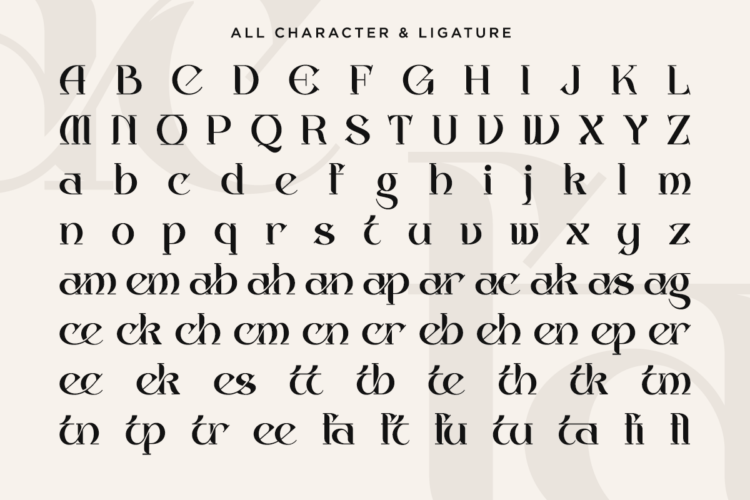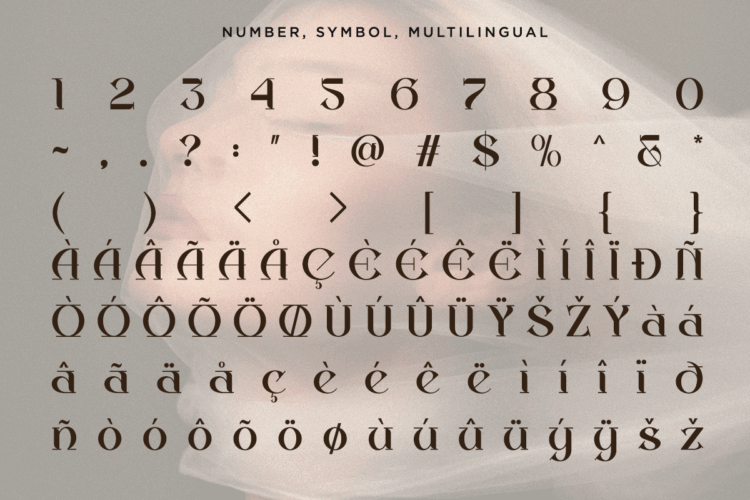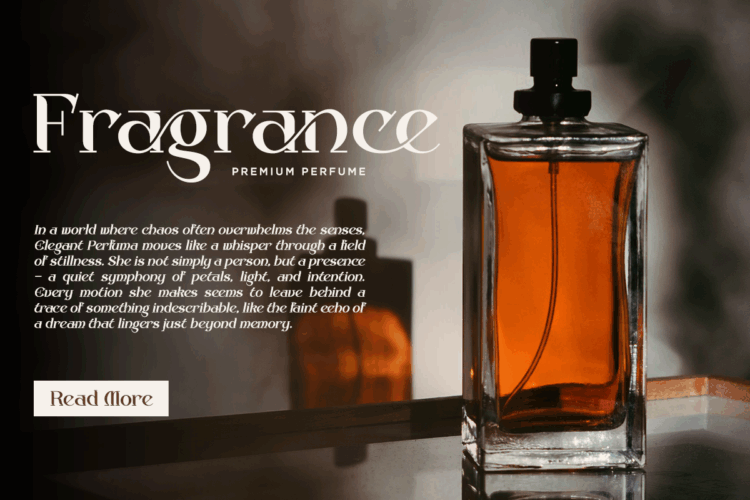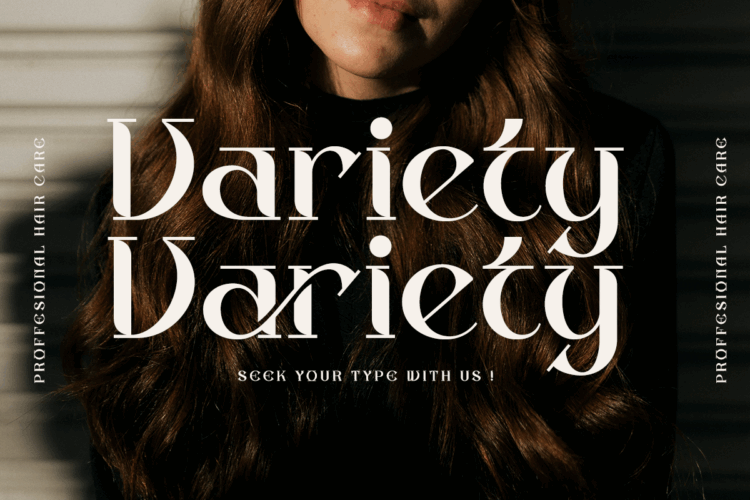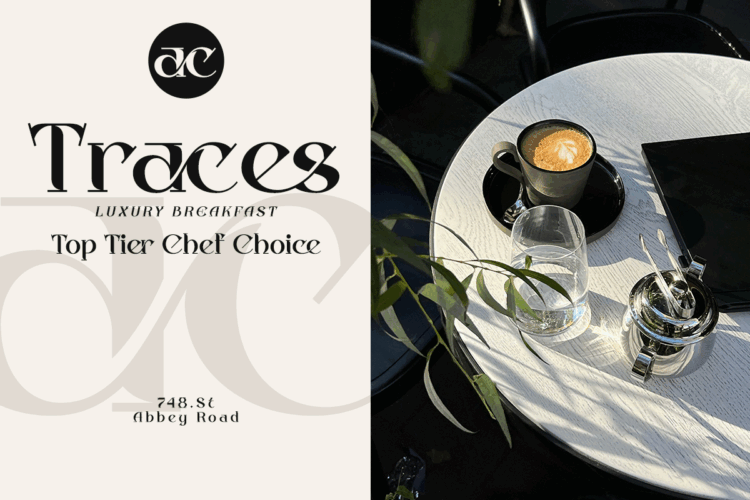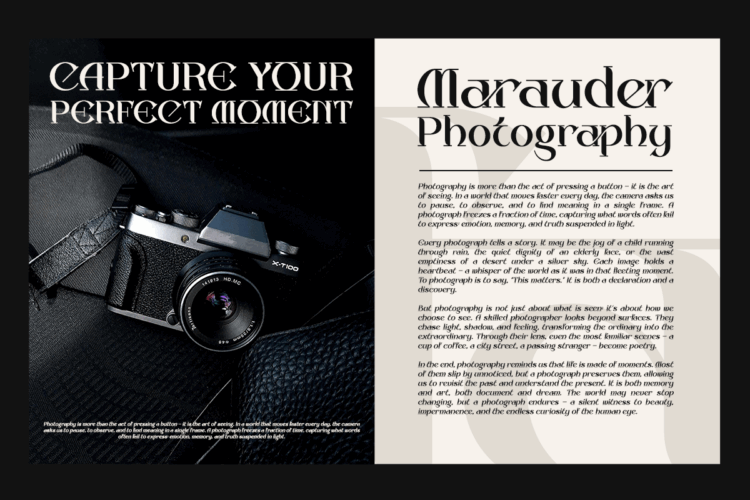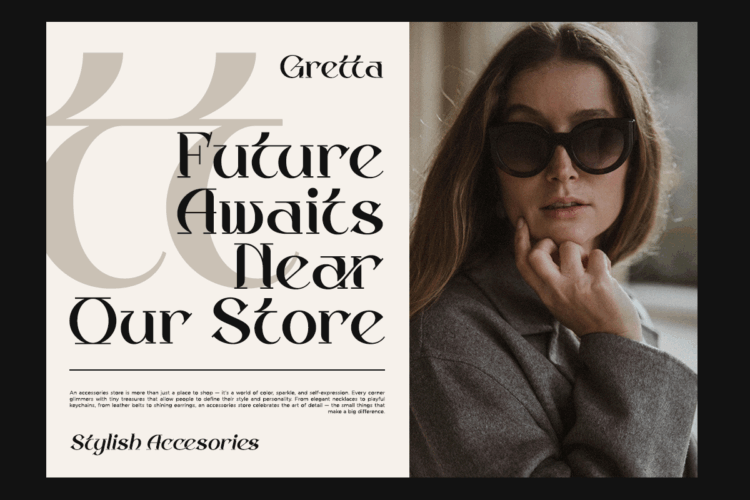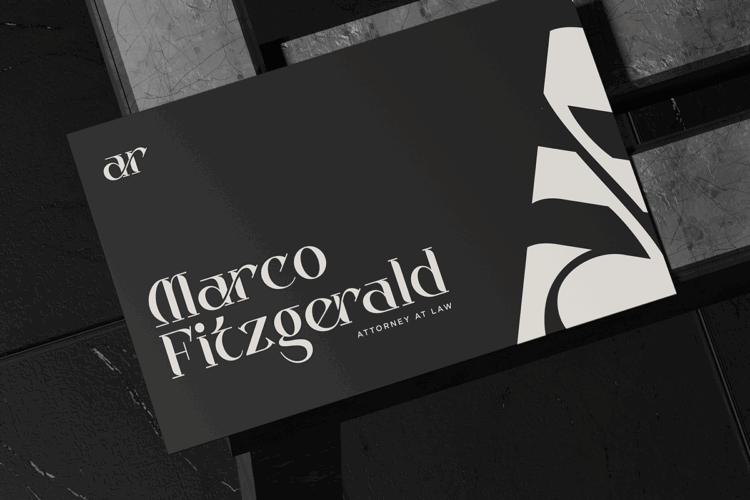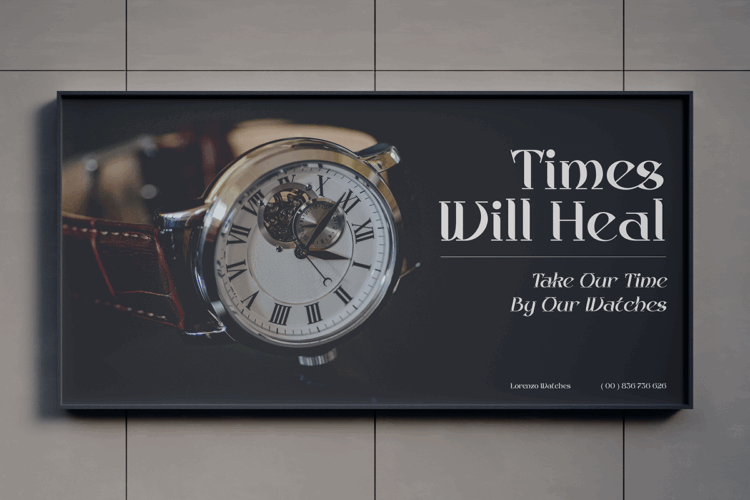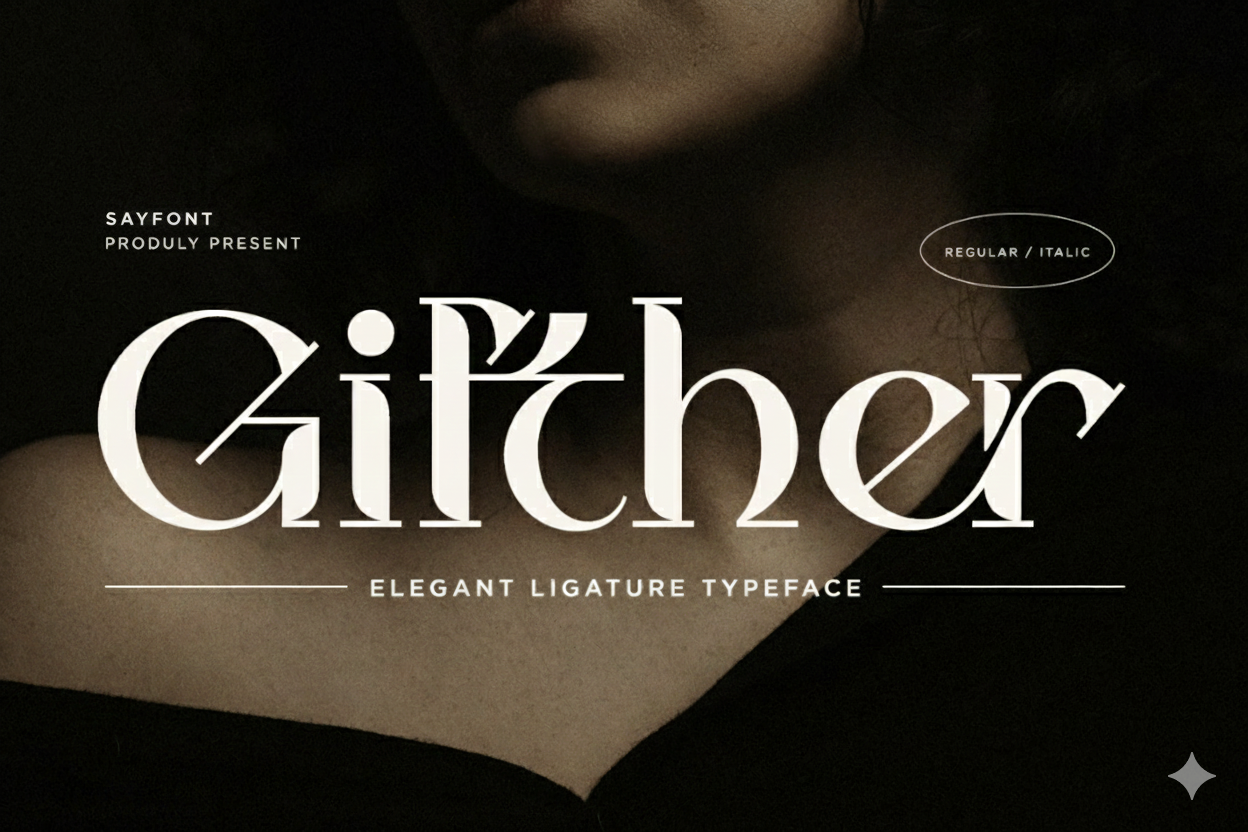
Gifther – Display Serif Font
Gifther is a modern and elegant serif typeface that showcases distinctive alternates and full multilingual support, enhanced with impeccable kerning. This font is perfect for crafting sophisticated and luxurious logos, refined editorial layouts, women’s magazines, fashion identities, beauty branding, contemporary advertisements, invitations, art quotes, home décor, book covers, special occasions, tote bags, T-shirts, and more.
– Stylish Ligature
– Number, and Symbol